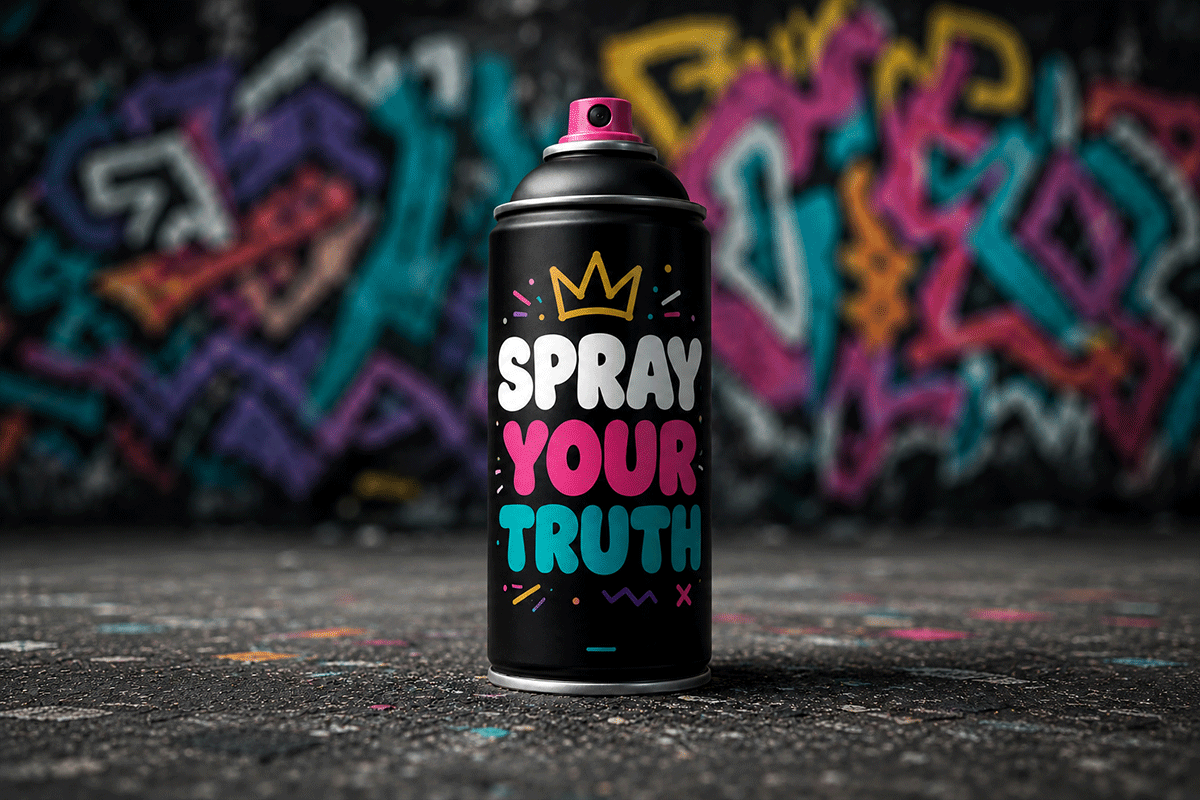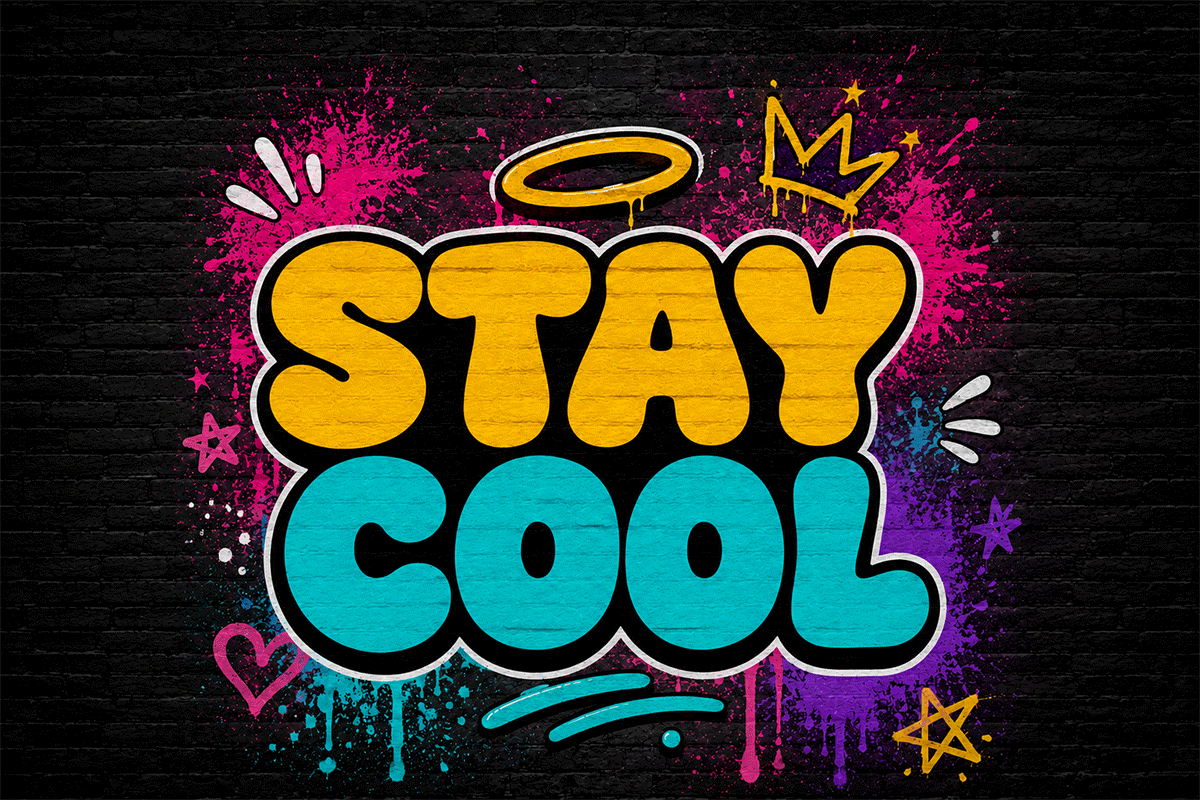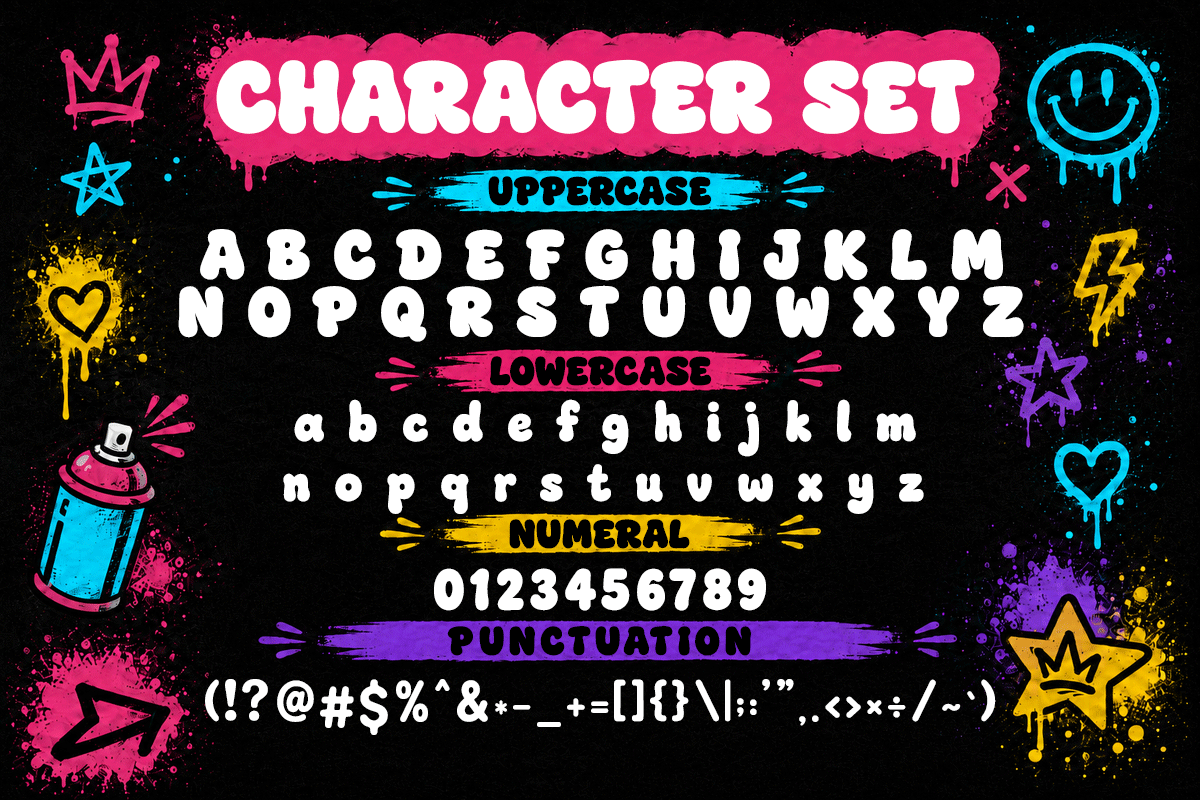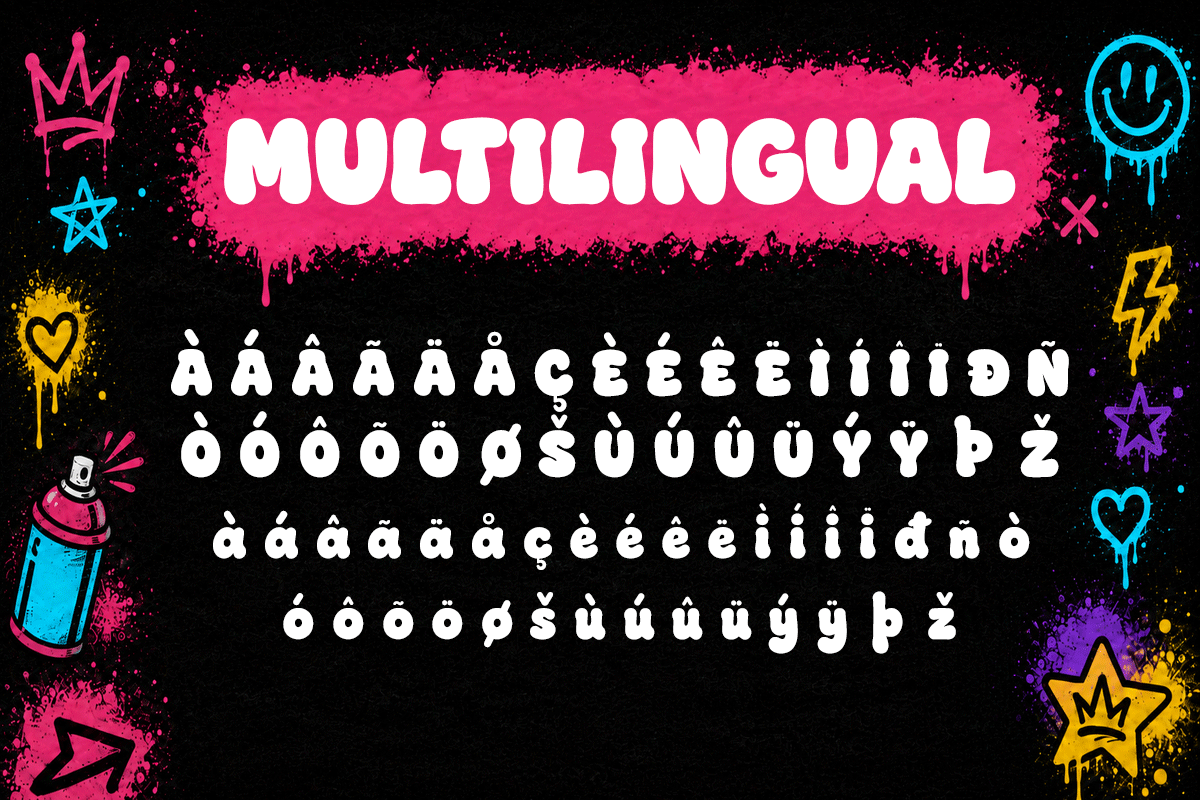
Bubble Vibes A Modern Graffiti Font is a bold, playful, and expressive graffiti display font packed with energetic street-style personality. Featuring chunky bubble-shaped letters, smooth curves, and a fun hand-drawn feel, this font is designed to make every word stand out with confidence.
Inspired by urban art, street culture, and colorful graffiti aesthetics, Bubble Vibes A Modern Graffiti Font is perfect for projects that need a youthful, creative, and eye-catching look. Its strong character works beautifully for headlines, posters, logos, apparel, stickers, packaging, social media graphics, branding, and many other creative designs.